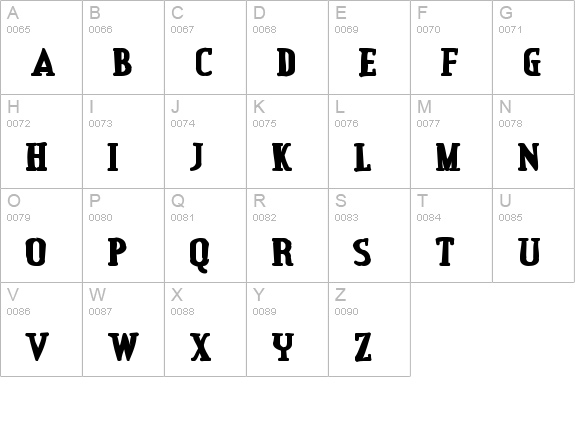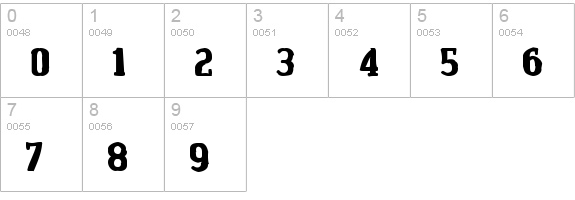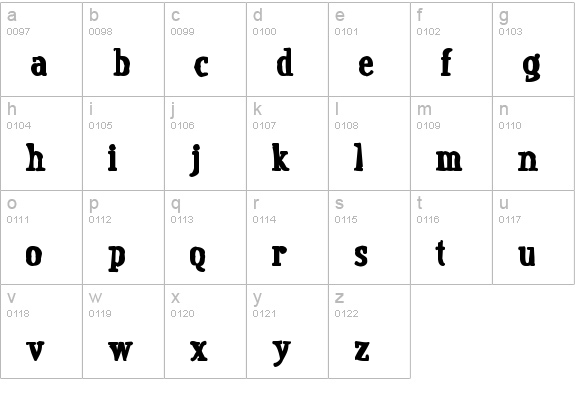
Credit Valley Ink font is a unique and stylish typeface that exudes a sense of creativity and artistic flair. With its hand-drawn look and charming imperfections, this font adds a touch of personality to any project. Whether you're designing a poster, logo, or greeting card, Credit Valley Ink font will bring a sense of handmade authenticity to your work. The best part? Credit Valley Ink font is completely free to download at FontsMarket.com. You can easily add this eye-catching font to your collection without breaking the bank. Don't miss out on the opportunity to enhance your designs with the whimsical charm of Credit Valley Ink font. Download it today and let your creativity shine!